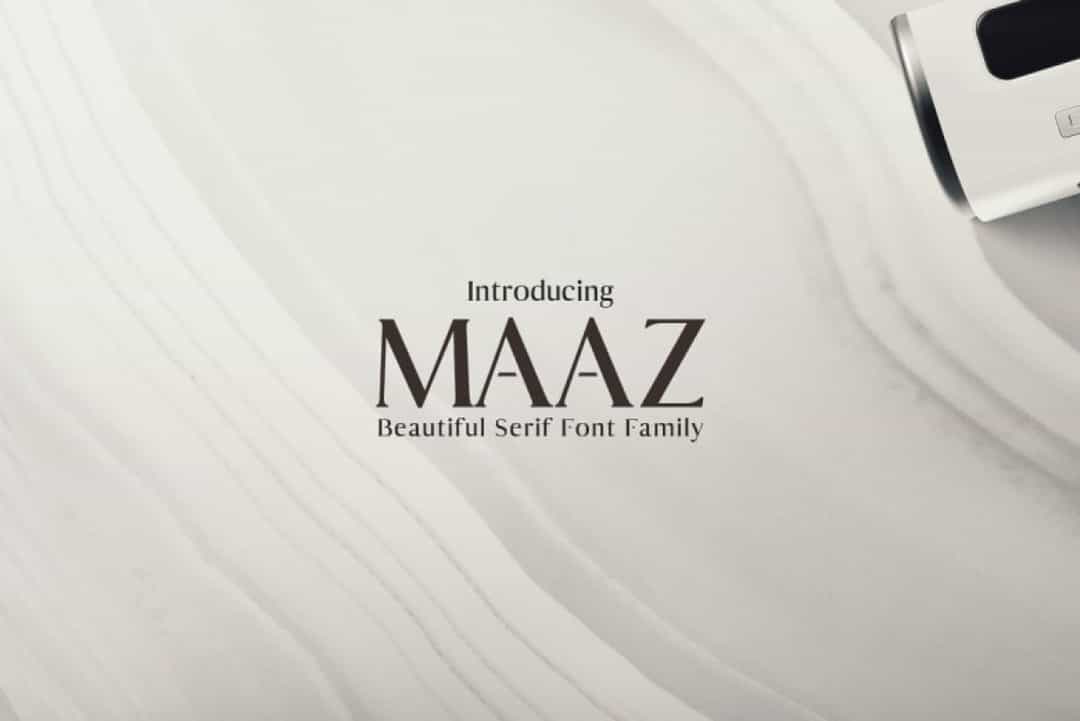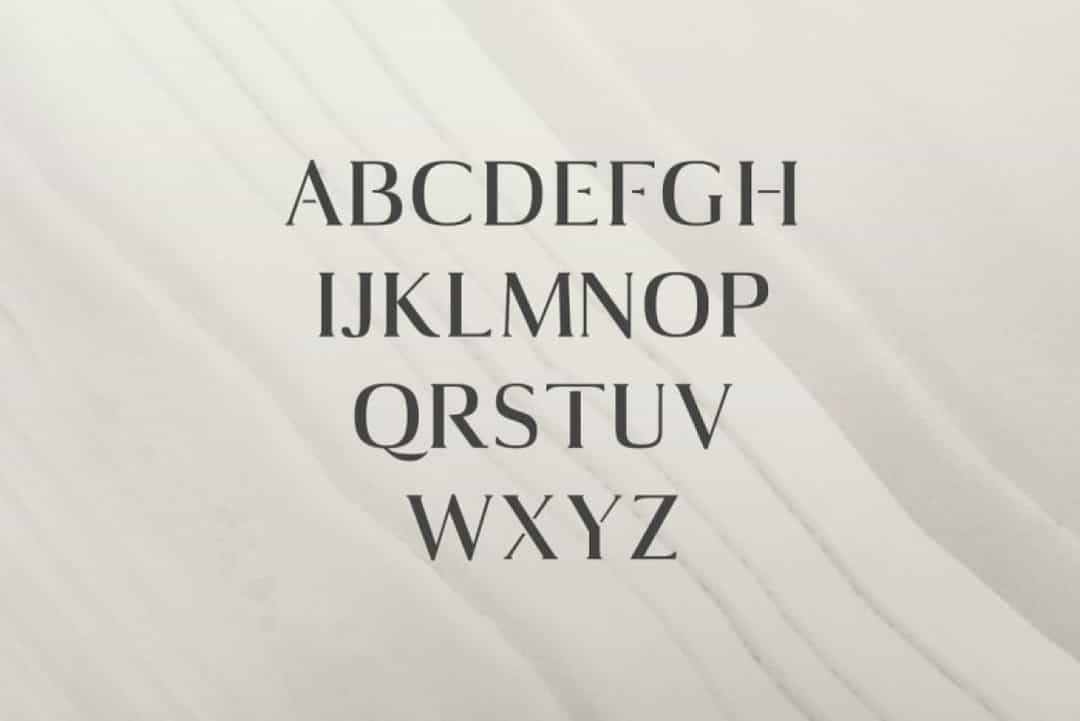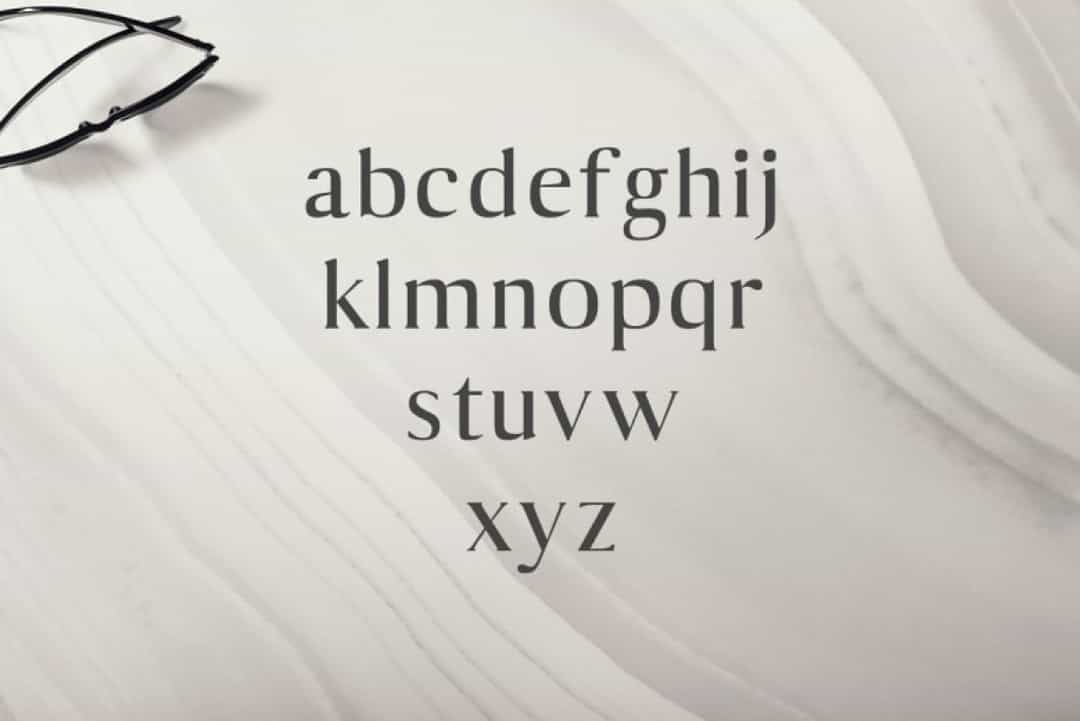
Maaz Serif Font is an ideal typeface for creating sleek and sophisticated logos and headlines, working well with sans-serif and script fonts and featuring various weight options.